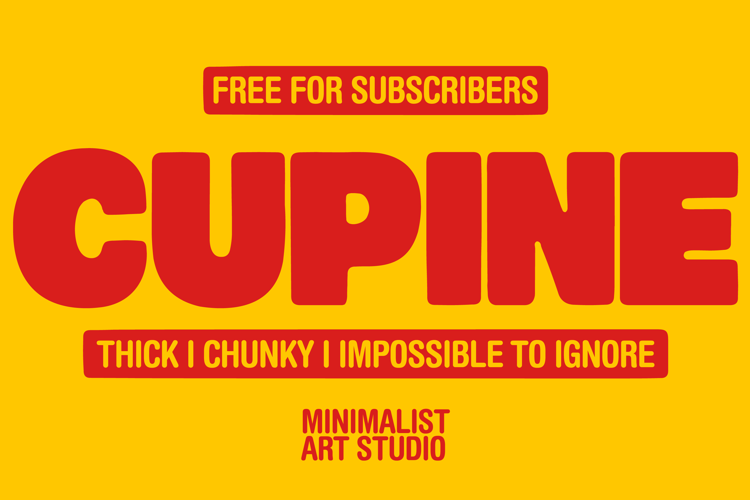
CUPINE Font
🎨 Font Name: VOLTAGE by Minimalist Art Studio
🎨 Font Description: Voltage is a tall, condensed sans serif font in Regular and Italic styles—perfect for bold headlines, modern branding, tech interfaces, and minimalist layouts; free for subscribers and built to energize your design flow.